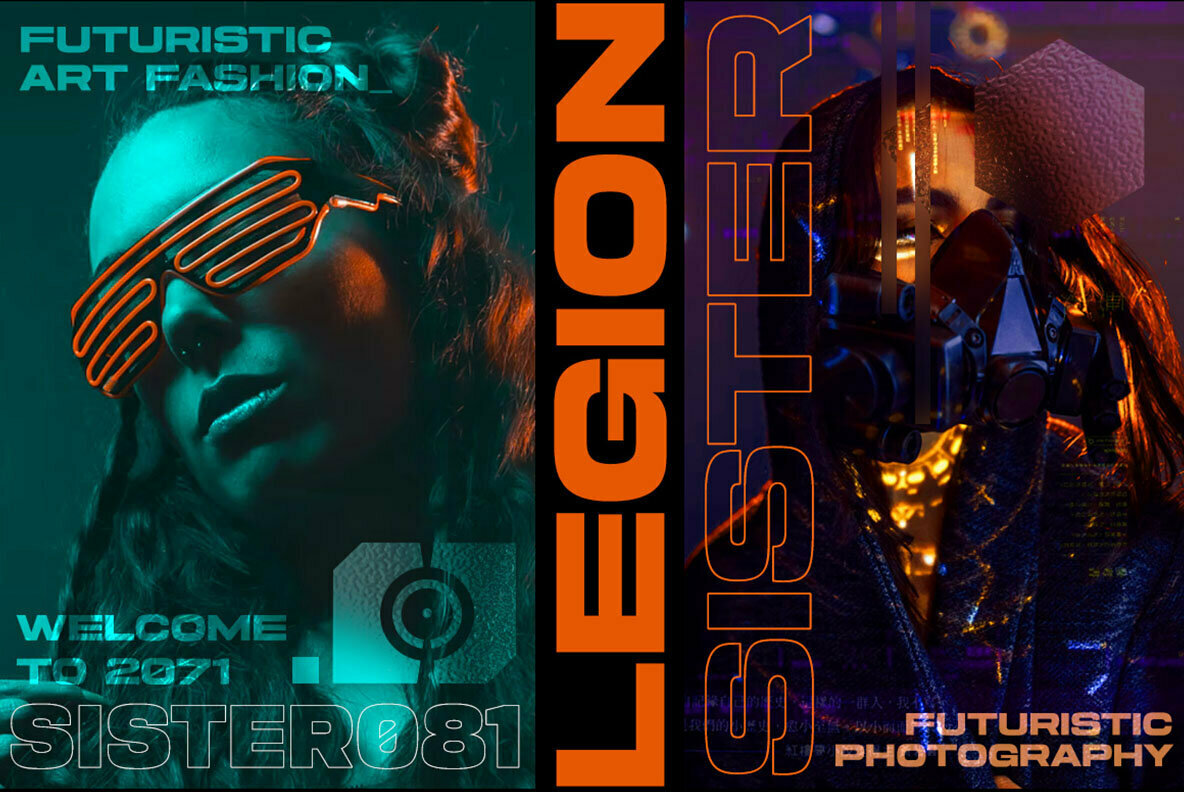
Cyberion Font
Cyberion by Letterhend Studio captures a sleek and contemporary aesthetic, making it an ideal choice for automotive, tech, and modern design projects. This sans serif font distinguishes itself with its bold and futuristic style, perfect for titles, headlines, and logo applications. Its versatility extends to formal applications, lending sophistication to invitations, magazines, and packaging.Cyberion: A Futuristic Typeface for Modern Design